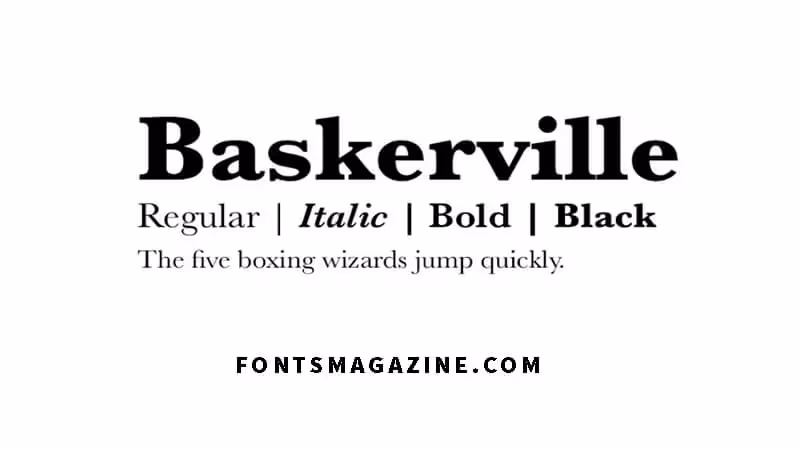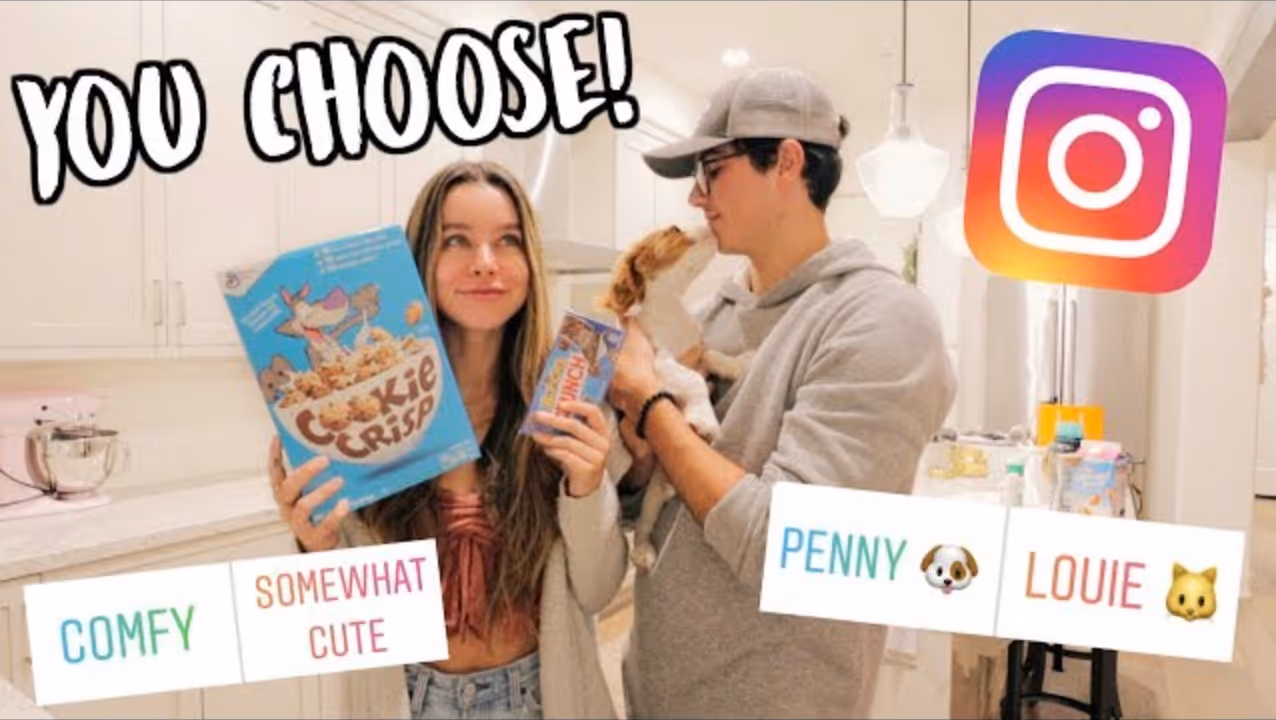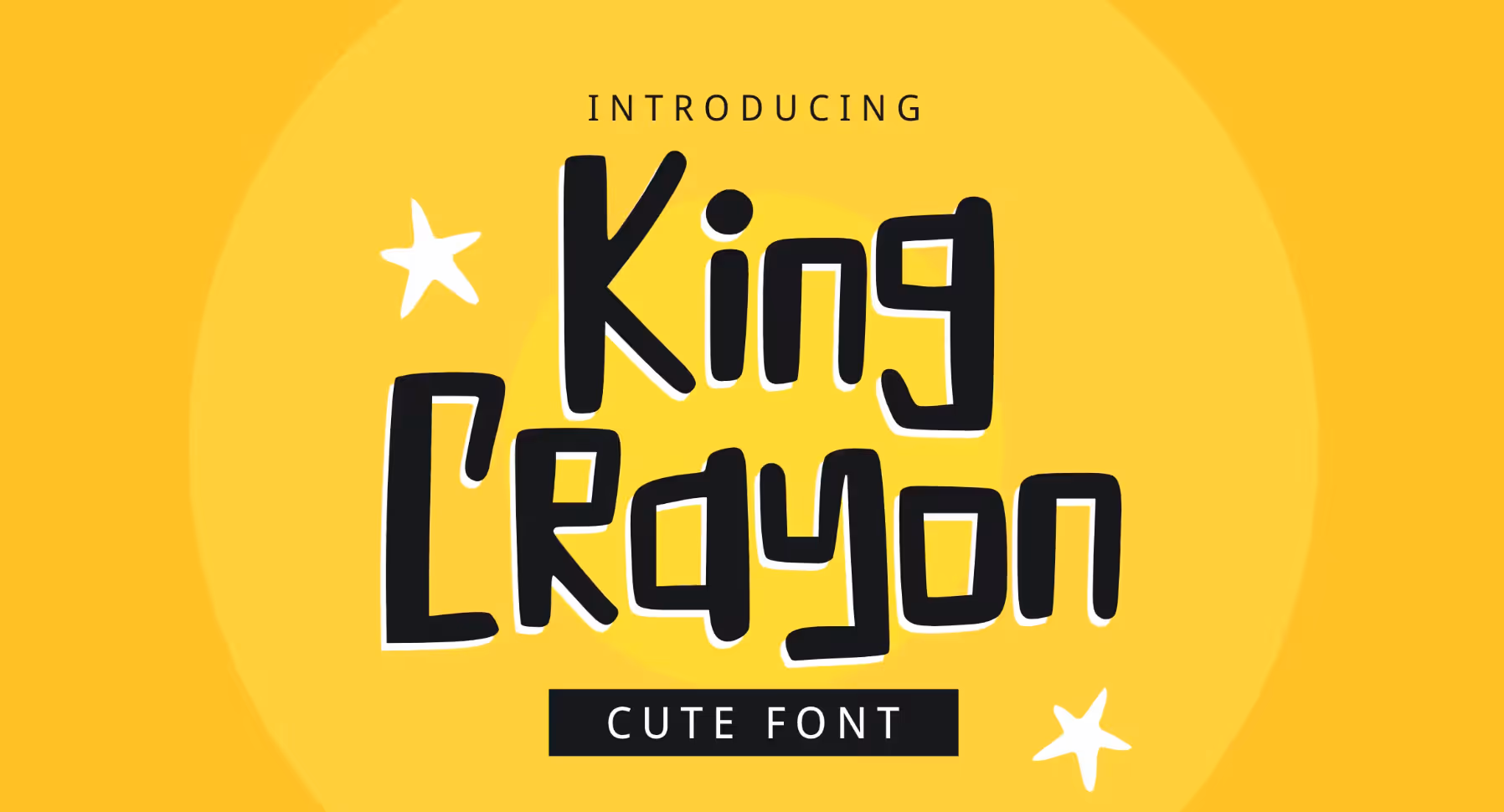
Fonts play a vital role in the overall visual appeal of your YouTube channel. Well-chosen YouTube fonts can make your channel stand out, convey a specific message, and reinforce your brand identity. In 2026, it's essential to choose the right bold font that's both modern and relevant to your YouTube videos. Let's take a look at the top 28 downloadable fonts for your YouTube channel in 2026.
1. Impact (Free)
Impact is one of the most widely-used outline fonts in 2026. It's a bold font style, commonly used on thumbnails and sometimes even channel banners. This is a highly clickable thumbnail font style that you just can't miss, the name doesn't lie! Plus Pewdiepie, one of Youtube's most popular creators, uses it for the majority of his videos. With 111,000,000+ subscribers, he might know a thing or two. This might just be the best Youtube font, so we had to rank it number one.
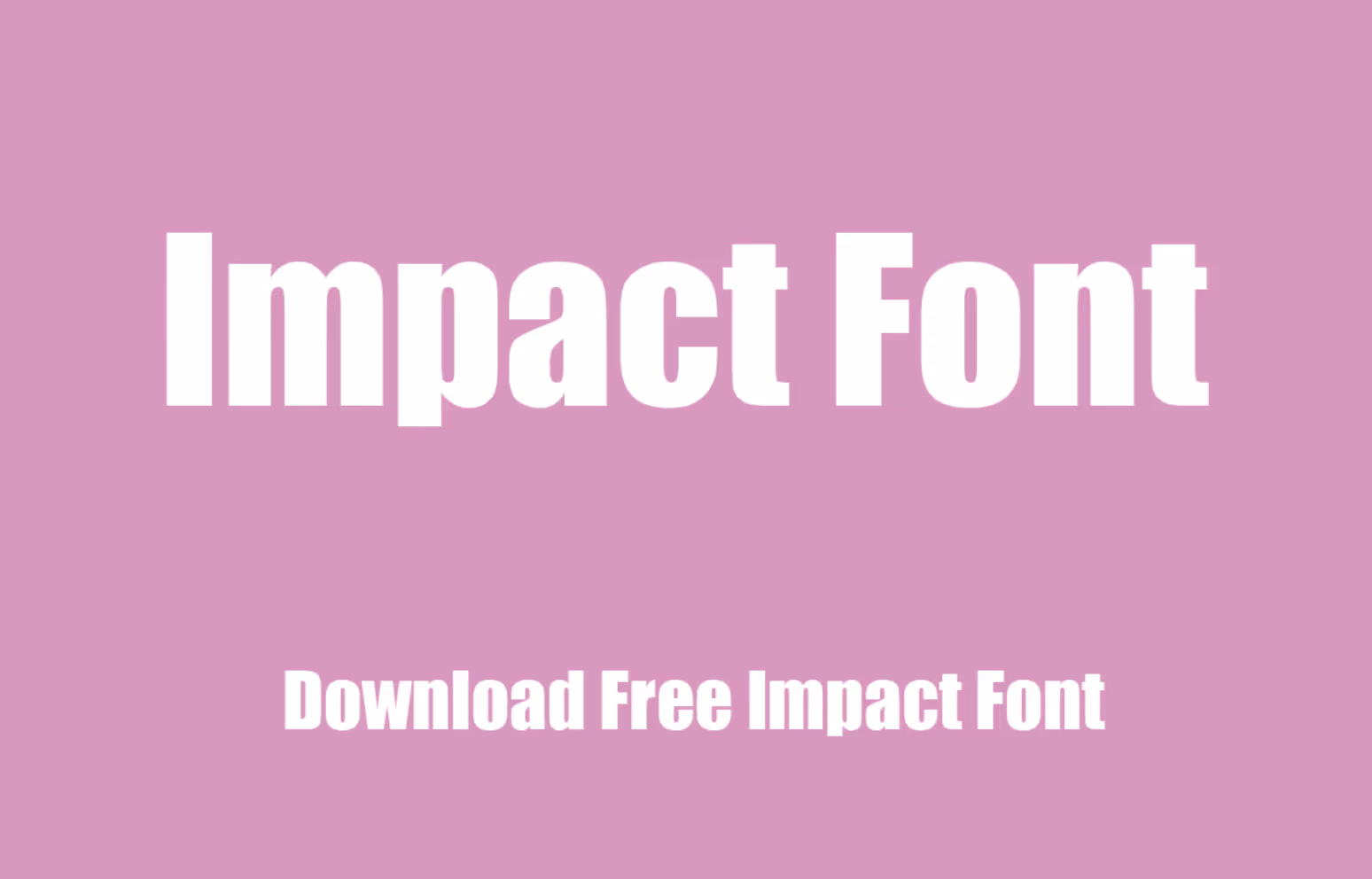
2. Bebas Neue (Free)
This is a bold and strong font that's perfect for attention-grabbing YouTube thumbnails and videos. It's also a great font for emphasizing important points in your videos that often need on-screen text, such as cooking videos and travel vlogs. You've definitely seen it before - many Youtubers commonly use it in white with a black outline. It's the go-to Youtube thumbnail for some of the most popular creators.
If you want to grab your audience's attention, this is the best font for you.
3. Roboto (Free)
One of the free best fonts for Youtube is Roboto. Designed by Christian Robertson, Roboto's sleek style is a perfect match for informational channels that need to be straightforward.
Fun fact - this is Google's most popular font. If YouTube is using Roboto for personal use, maybe we should take a note too.
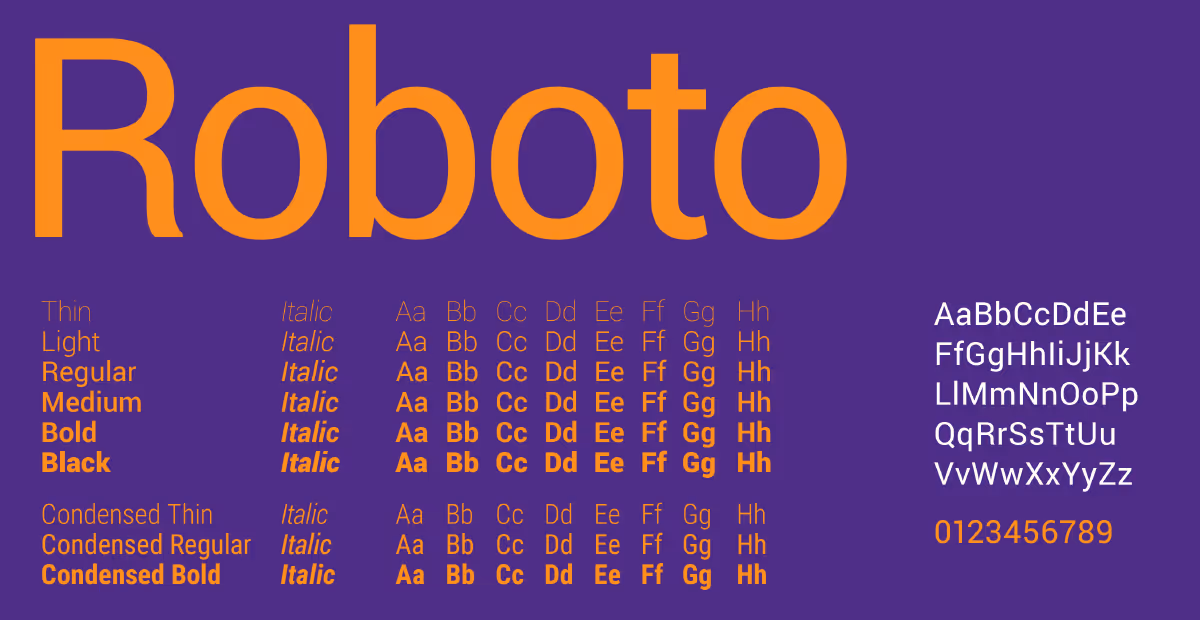
4. Lato (Free)
Lato is sans-serif, aesthetically pleasing, and one of the most popular fonts on Youtube. It's great for Youtube content that's meant to be engaging and relatable. It's a popular choice for YouTubers who want to connect with their target audience on a personal level and a fantastic choice for both personal and commercial projects.
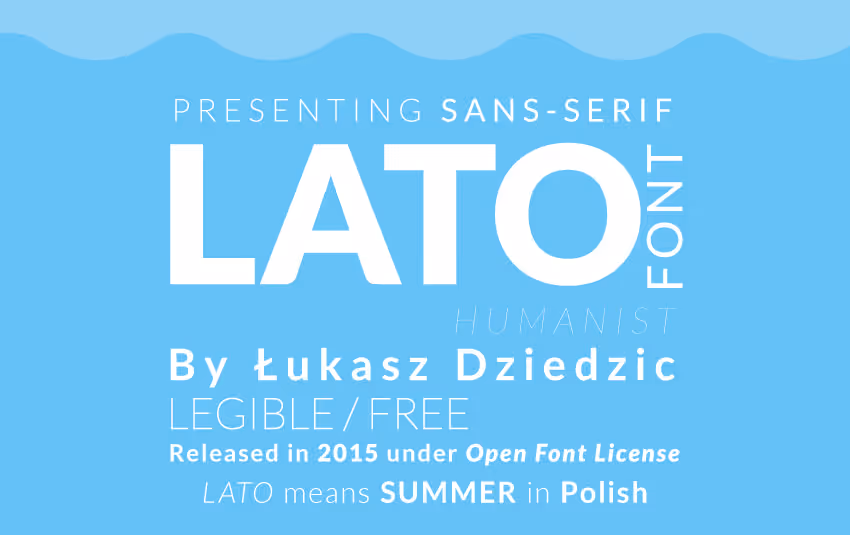
5. Raleway (Free)
Raleway is a beautiful and professional font with unique features that make it one of the perfect fonts for anything that needs a touch of refinement, from logos to headlines to display text.
It's one of the best fonts to make a statement without shouting it from the rooftops. Use this stylish font to create Youtube Thumbnails and attention-grabbing in video text. Careful with where you use this on Youtube, as the W in this font is an extremely eye catching feature and can catch some by surprise.
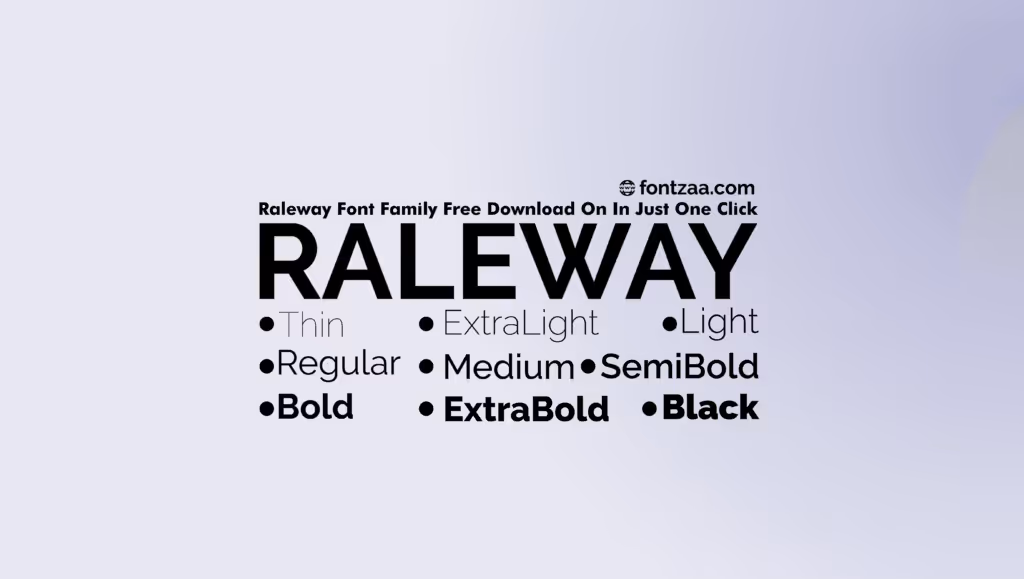
6. Open Sans (Free)
Open Sans is a free sans serif font style, and one of the best fonts for versatility. This font is just what you need if you want to keep consistent across, your video thumbnail, Youtube banner, and even in video text.
If you need something eye catching in your videos that isn't too "in your face", Open Sans might be one of the best fonts for you.
7. Gotham (Free)
Gotham is a classic font that's been around for over a decade. It's a bold and attention-grabbing font that's perfect for titles and headlines. It's also a stylish urban font that can effectively deliver a message. Remember a certain former President making waves with one word: "HOPE"? We bet you do, and that should speak to why this is one of the best fonts for Youtube thumbnails and channel banners.
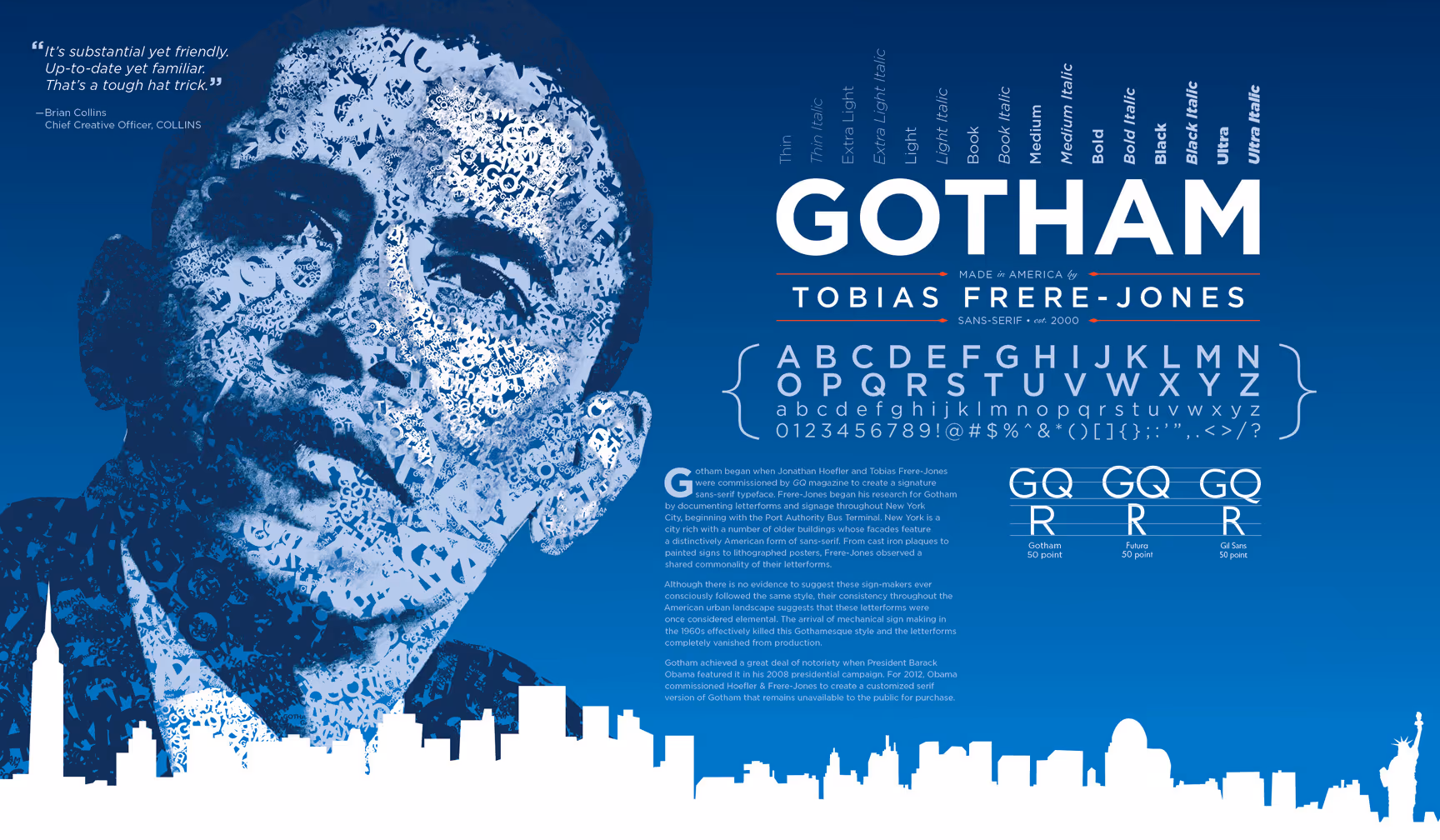
8. Proxima Nova (For Purchase)
Proxima Nova is a sleek and modern font that's great for tech, gaming, and other futuristic content. It's a popular choice among YouTube creators who want to convey a sense of innovation and progress. When it comes to bold fonts for Youtube thumbnails, Proxima Nova's bold font styles provide a variety of amazing options. This font pack even comes with extra styles including an italic version.
Although Proxima Nova was officially released in 2015, type designer Mark Simonson started working on the typeface almost in 1980, 25 years earlier! Talk about a work in progress.
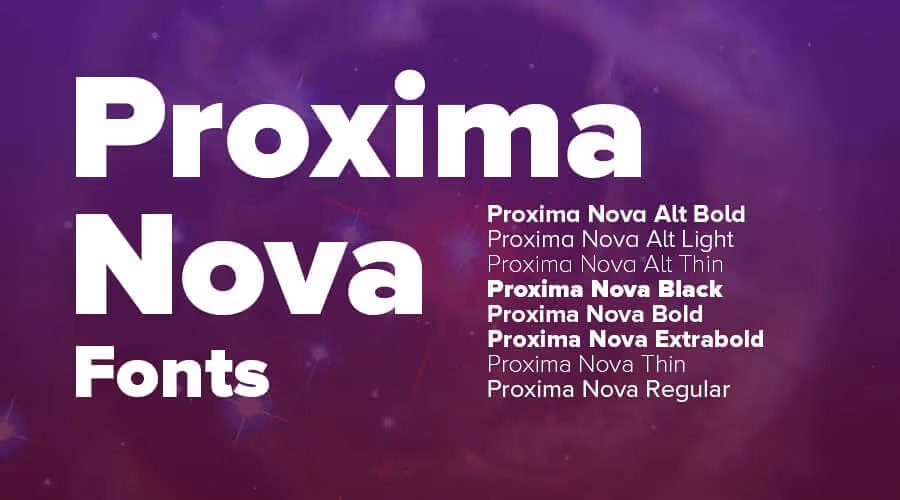
9. Playfair Display (Free)
When it comes to youtube fonts, Playfair Display might just be the best option out there for fashion, beauty, and lifestyle content. It's a popular choice among YouTube creators who want to keep their font stylish and convey a sense of luxury and refinement in their Youtube videos.
Although created in 2011, this font was influenced by typefaces from the mid to late eighteenth century, such as Baskerville.
10. Avenir (Free)
Avenir might be the best Youtube font for YouTube creators who want to convey a simple and effective look. If you're not looking for a funky font and trying to stay far away from a quirky font, you can trust Avenir to do the job.
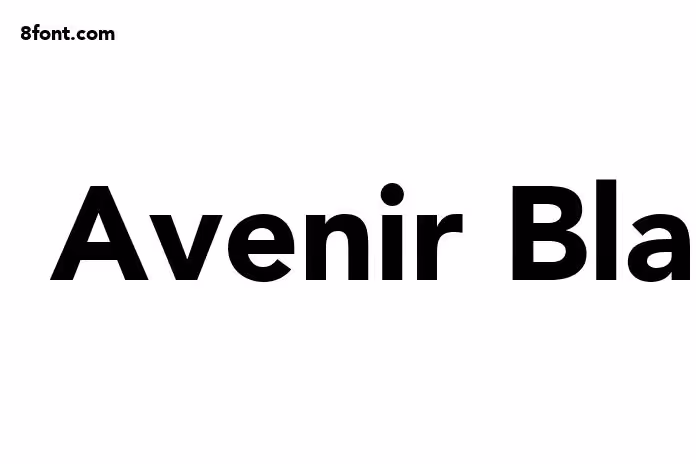
11. Futura (Free)
Futura is a classic font that's been around since the 1920s. Tried and true, many Youtubers still use this old font for it's bold, futuristic vibe to convey the same type of emotion with their Youtube videos. Futura was even used by NASA on the side of their rockets, and could be seen on the Apollo 11 mission. That's a pretty impressive track record in the world of fonts.
These 28 top fonts are just some of the top options to consider for 2026, and can help you convey the message and image you want to present to your audience.